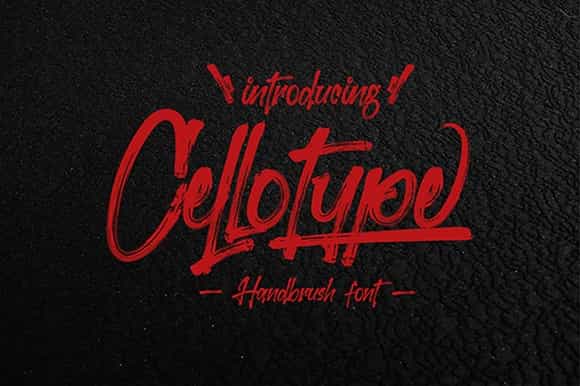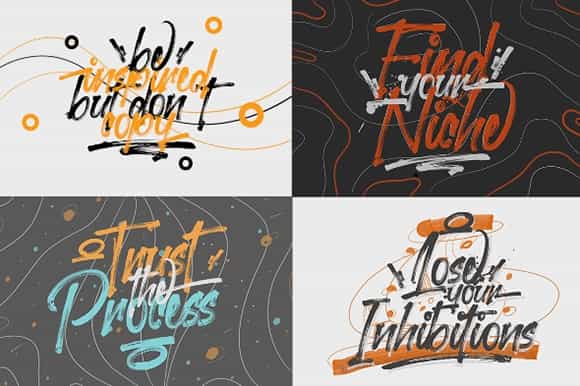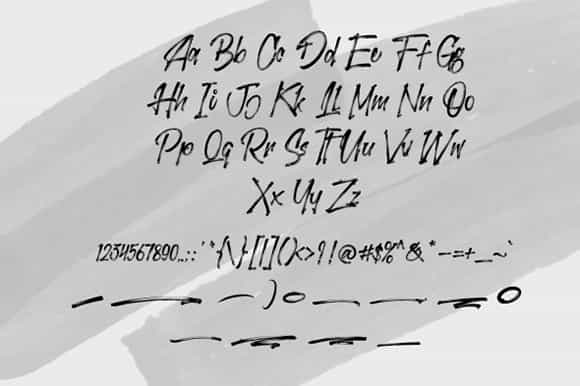
This font is called Cellotype, it is a fun brush script font. It is relatively perfect for professional branding as it gives a professional look or feel to the brand. It is clear that every letter has its specific and beautiful appearance. Handwritten script brush font, with two styles: for the swashes and for the regular ones.